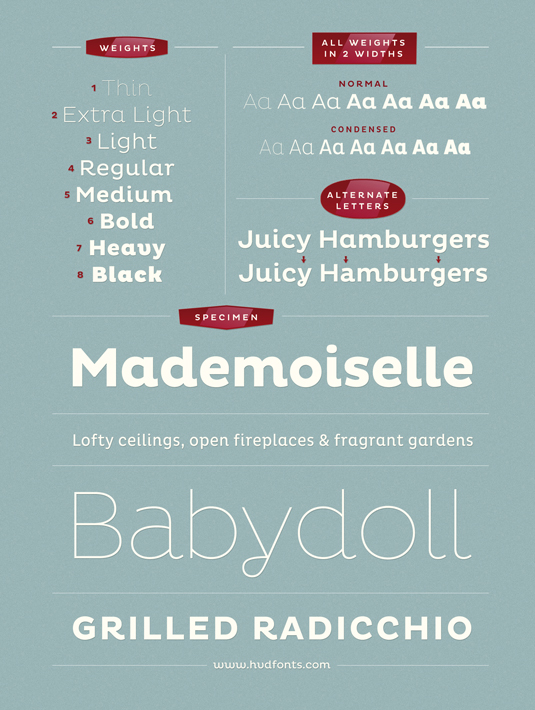
Greatest fonts countdown: 56 - Pluto
We're counting down the 100 greatest typefaces in existence. Here is number 56...
56. Pluto
- Hannes von Döhren, 2011
Type designer Hannes von Döhren set out to create a 'cute, friendly, curly and almost feminine' typeface that retained readability when used within longer copy, striking a balance between legibility and the curly proportions. The resulting typeface, Pluto, appears informal and friendly, but also features straight, upright architecture, while a generous x-height allows for use at small sizes.
Pluto is available in 16 weights, from extra-light and condensed extra-light through to black and condensed black, with alternates, fractions, lining, tabular numbers, superior/inferior figures and arrows.